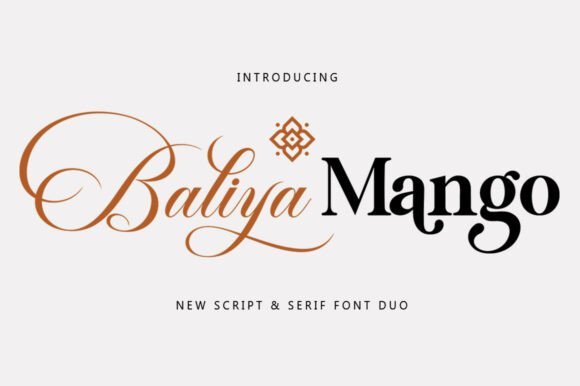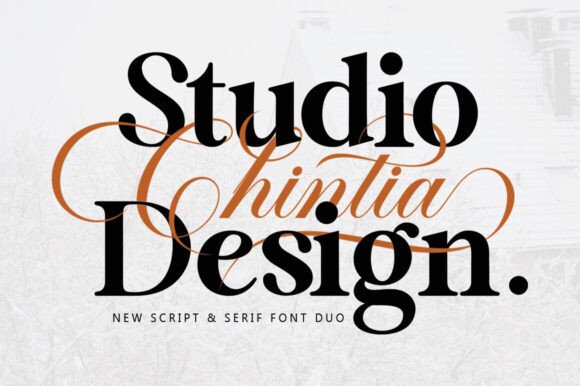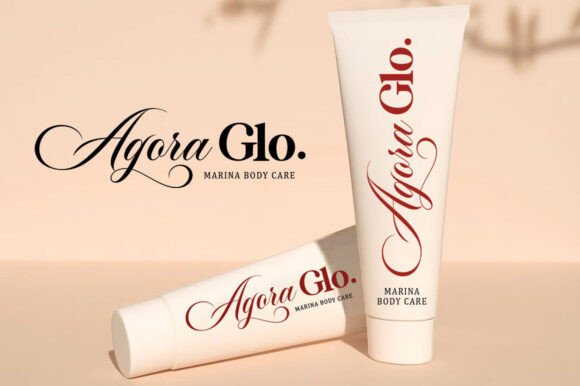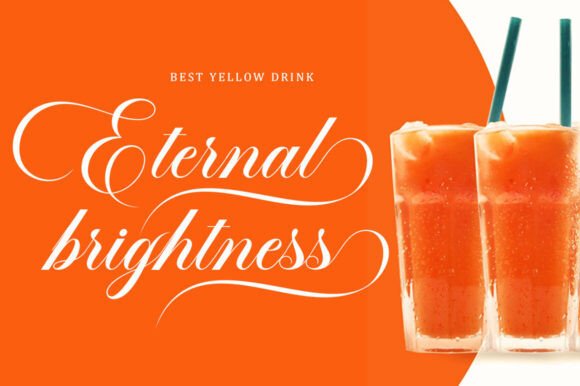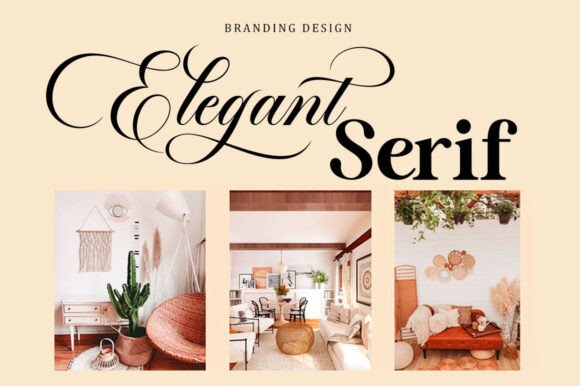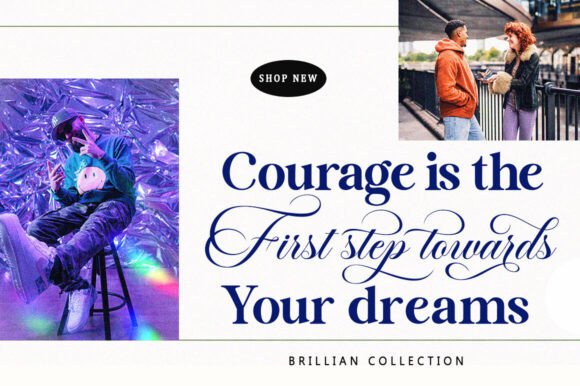
Unleash Your Creativity with Baliya Mangon Font
Have you ever sat in front of your computer, staring blankly at a blank canvas, waiting for inspiration to strike? It’s a familiar feeling for many designers, but what if I told you there’s a secret to unlocking your creative potential? Introducing the Baliya Mangon Font, a dynamic duo of serif and fancy script fonts that are designed to work in perfect harmony.
This versatile font pair is not just a stylish addition to your design toolkit, but a game-changer for creatives who want to elevate their projects. Whether you’re working on a modern branding campaign or a vintage-inspired craft project, the Baliya Mangon Font is the perfect companion to help you bring your vision to life. With its endless possibilities for pairing and mixing, this font is a valuable asset for designers who want to add a touch of elegance and sophistication to their work.
- Unique Characteristics: Baliya Mangon Font features a unique blend of traditional and modern elements, with intricate details and ornate flourishes
- Font Style: Script, Calligraphy, Decorative
- Language Support: Supports multiple languages, including Latin, Cyrillic, and Devanagari scripts
Baliya Mangon Font Review
I recently had the chance to work with the Baliya Mangon font, and I’m here to share my honest thoughts.
- Unique aesthetic: Baliya Mangon brings a refreshing twist to traditional font styles, making it perfect for designers looking to stand out.
- Elegant script: The font’s flowing lines and subtle flair make it ideal for headings and titles that need a touch of sophistication.
- Good legibility: Despite its decorative nature, Baliya Mangon remains easy to read, even at smaller font sizes.
- Limited versatility: Baliya Mangon’s distinct style may not be suitable for every project, particularly those requiring a more modern or minimalist look.
- May not work well for body text: While the font is legible, it’s still a decorative script and may not be the best choice for large blocks of text.
Overall, I found Baliya Mangon to be a beautiful and eye-catching font that adds a touch of elegance to any design. While it may not be the most versatile font, it’s perfect for projects that require a unique and sophisticated look.
The Baliya Mangon Font is perfect for:
1. Creating elegant invitations and wedding stationery.
2. Designing luxury branding and marketing materials.